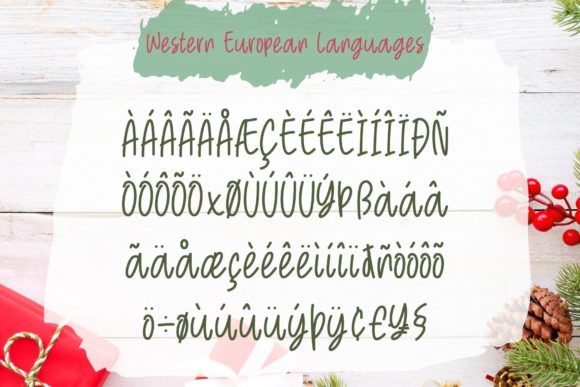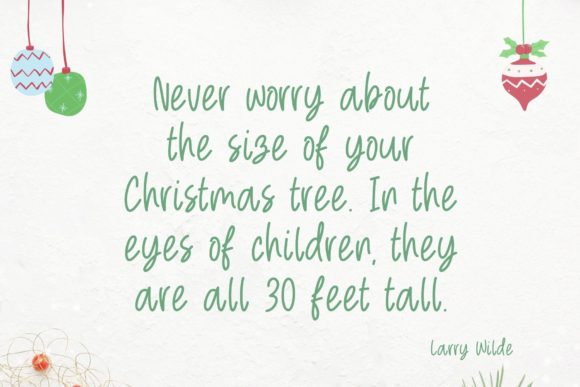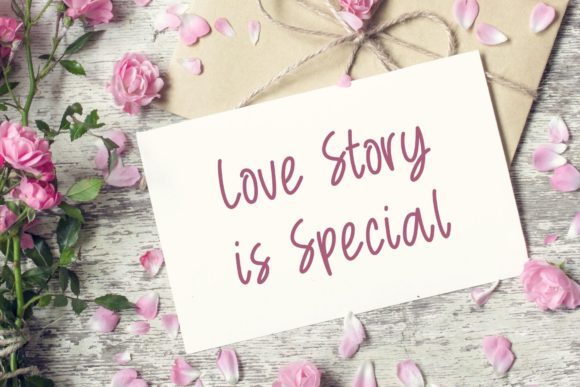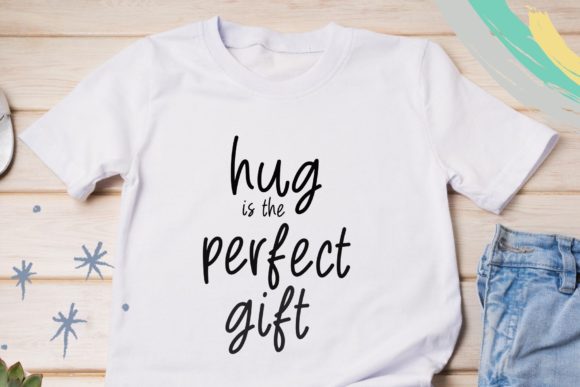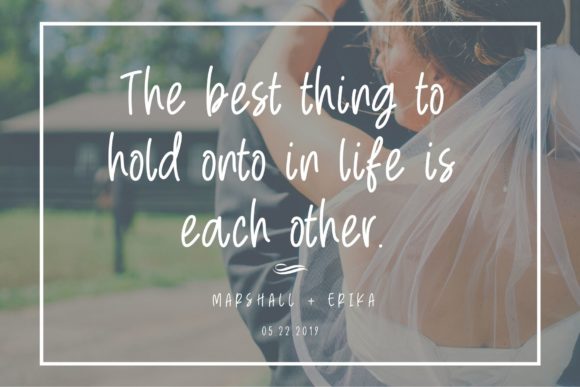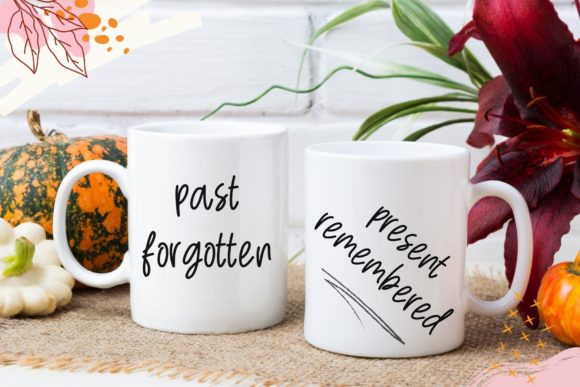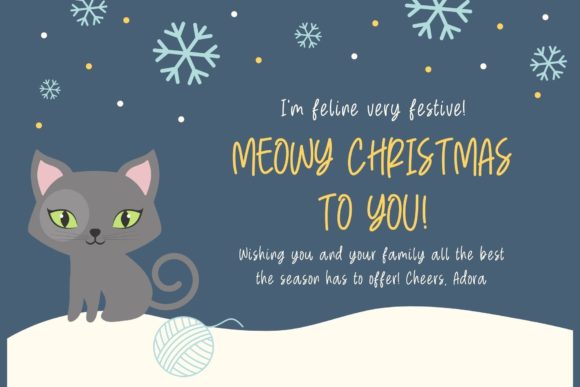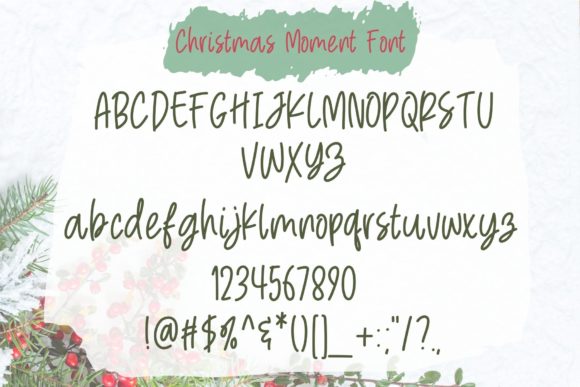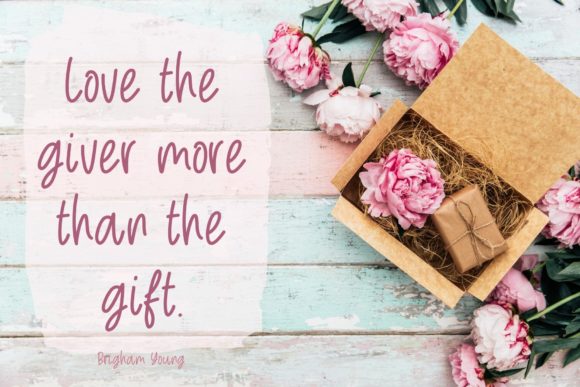
Christmas Moment Font
About Christmas Moment Font
“Christmas Moment” arrives as a font brimming with sweetness and cheer, infused with an aura of friendliness that effortlessly spans across a multitude of design projects. With its endearing charm, this font becomes a chameleon, adapting to various contexts and breathing life into your creative concepts.
What sets “Christmas Moment” apart is its innate ability to evoke a sense of joy and approachability. Its handcrafted letters exude an authenticity that resonates like a warm hug, making it an ideal companion for designs aiming to establish a connection that feels like catching up with an old friend. With each stroke, the font paints a picture of merriment and comfort.
Imagine the magical impact of “Christmas Moment” on a spectrum of designs—a festive holiday card brought to life by the font’s cheerful strokes, capturing the essence of the season’s spirit. Visualize the font gracing a menu for a cozy café, imparting a sense of welcoming hospitality to patrons. This font’s versatility extends seamlessly across different themes, enhancing your projects with an element of heartwarming charm.
The natural charisma of “Christmas Moment” is irresistible, akin to a joyful tune that stays with you. Its letters dance on the page, infusing a sense of delight that elevates the overall design. The font radiates a cheerful aura, inviting creators to embrace the art of spreading happiness through their creations.
Designers and enthusiasts alike will undoubtedly find themselves enchanted by the friendly allure of “Christmas Moment.” Its adaptability exceeds the ordinary, making it an indispensable tool for various projects. More than just a font, “Christmas Moment” evolves into a medium of expression, allowing creators to infuse their work with a dash of warmth and approachable charm.
In essence, “Christmas Moment” transcends the boundaries of conventional typography, emerging as a vessel for heartfelt communication. Its sweet and cheerful handwritten style beckons you to embrace the diverse avenues of design, transforming your ideas into tangible creations filled with happiness. As you navigate the realms of creativity, let “Christmas Moment” be your guiding light, leading you to craft designs that resonate deeply and fill the world with the magic of joyful moments, all while encapsulating the essence of your creative imagination.